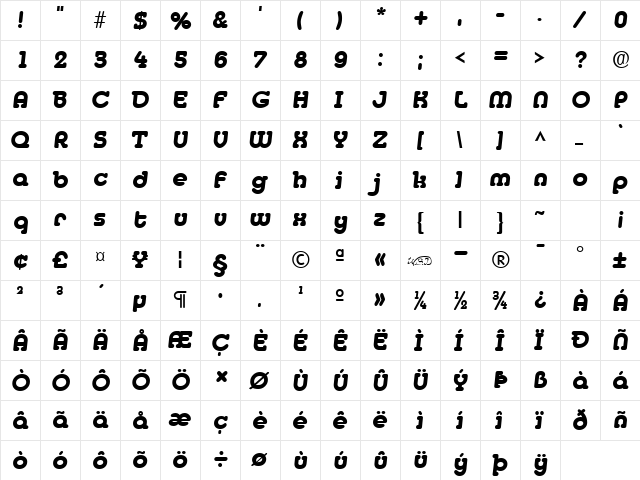
Medfly Heavy Regular
Design Context for Medfly Heavy Typeface
Medfly Heavy takes a measured approach to typography — its balanced proportions and neutral character make it a reliable workhorse for both digital and print work.